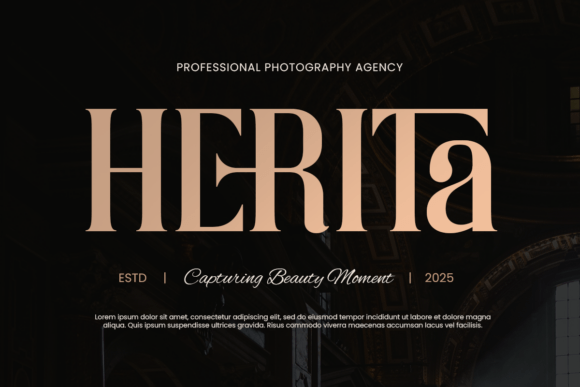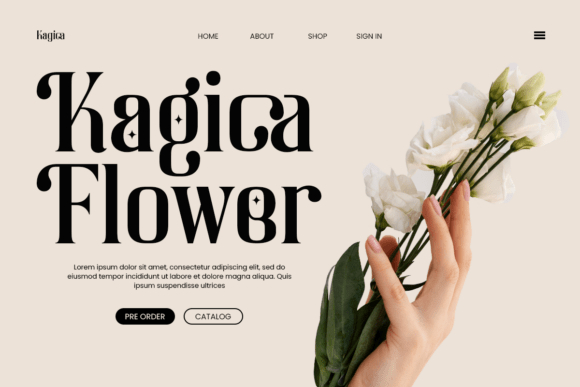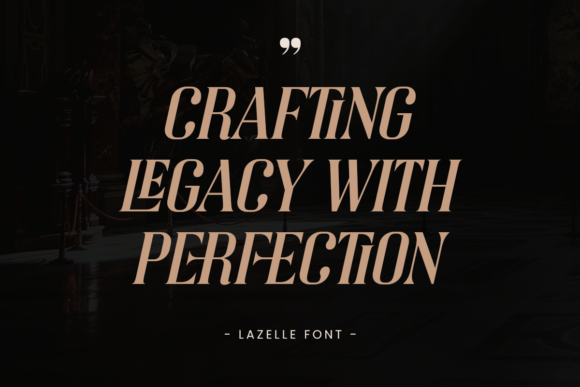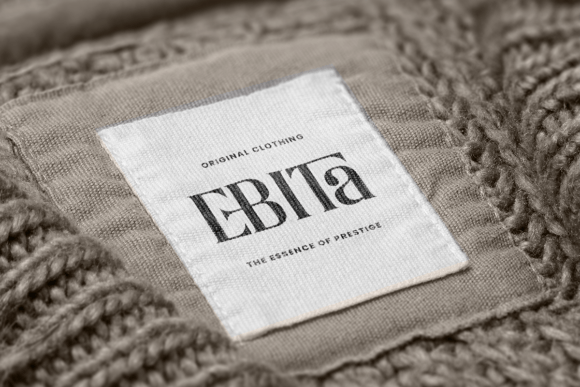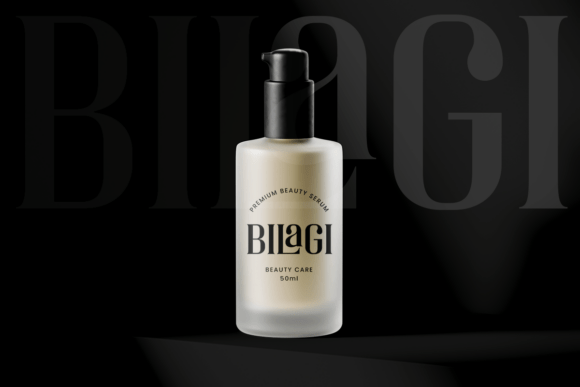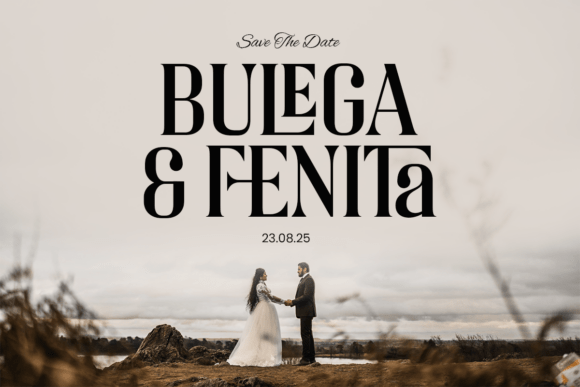
Introduction to Lazelle Font
Have you ever been stuck in a creative rut, searching for the perfect font to elevate your design project? You’ve spent hours scrolling through font libraries, trying to find that elusive combination of style and sophistication. If you’re a designer who values creativity with class, you’re in luck – we’re about to introduce you to the Lazelle Font, a modern serif font that’s sure to captivate with its unique contrast and visual intrigue.
Imagine a font that effortlessly balances bold, thick strokes with delicate thin lines, creating a sophisticated rhythm that’s perfect for everything from magazines to wedding stationery. The Lazelle Font is more than just a design resource – it’s a game-changer for designers who want to add a touch of elegance and character to their work.
Key Features of Lazelle Font
- High-quality, professional design suitable for creative projects.
- Designed with a modern aesthetic, ideal for contemporary creative projects.
Honest Review: Lazelle Font
As a designer, I’m always on the lookout for high-quality design resources that can elevate my creative projects. Recently, I stumbled upon the Lazelle Font, and I must say, it’s been a game-changer for me.
What works well is the font’s versatility. It’s perfect for titles, headings, and even body text. The Lazelle Font comes with a transparent background, which makes it easy to use on any design surface. The font is also free to download, making it an excellent addition to any designer’s toolkit.
However, I did encounter some limitations. The font’s range of styles is somewhat limited, and I found that it’s not ideal for very long blocks of text. Additionally, the font’s bold weight can sometimes appear a bit too aggressive.
- ⚠️ Limited range of styles
- ⚠️ Not ideal for very long blocks of text
- ⚠️ Bold weight can appear too aggressive
Overall, I’m quite impressed with the Lazelle Font. While it may have some limitations, its high-quality design and versatility make it a valuable addition to any designer’s toolkit.
The Lazelle Font is ideal for creative projects such as logos, business cards, and social media graphics. It’s also great for presentations, documents, and any design that requires a high-quality and unique font.